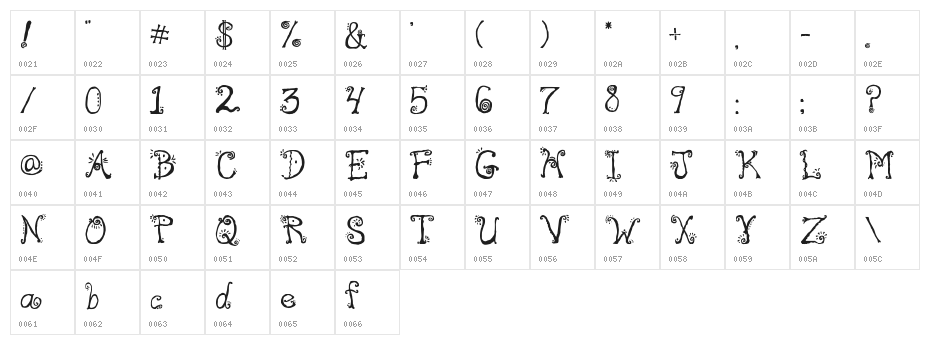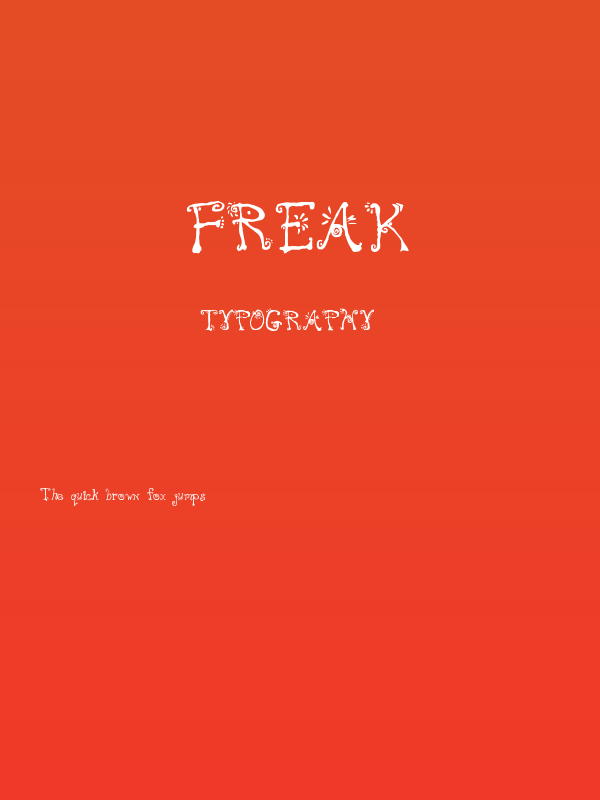
Freak Font
Freak Description
This font features a whimsical and playful design, characterized by its decorative elements and unique embellishments on each character. The letters are adorned with swirls, dots, and curls, giving them a lively and animated appearance. The uppercase and lowercase letters maintain a consistent style, with exaggerated curves and loops that add to the font's quirky charm. Numbers and special characters are equally ornate, making this font ideal for creative and eye-catching designs. Its distinct style makes it stand out, perfect for projects that require a touch of fun and creativity.
| Proposed Projects | Ideal for children's book covers, playful invitations, creative posters, and whimsical branding. |